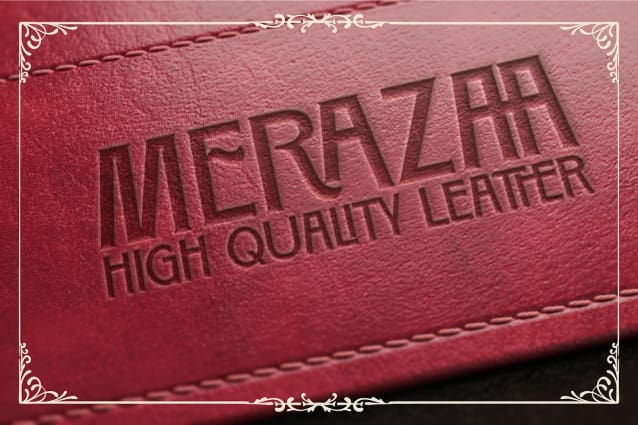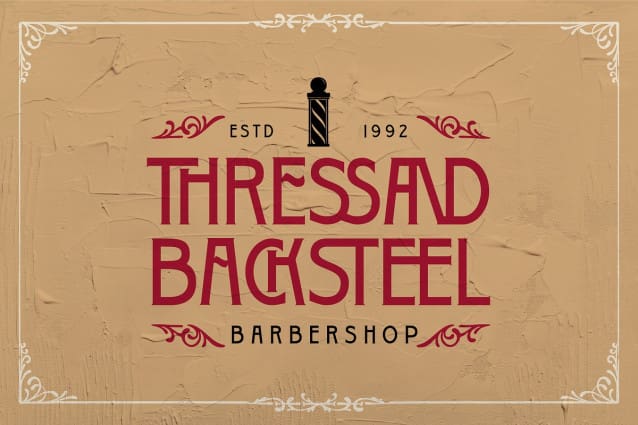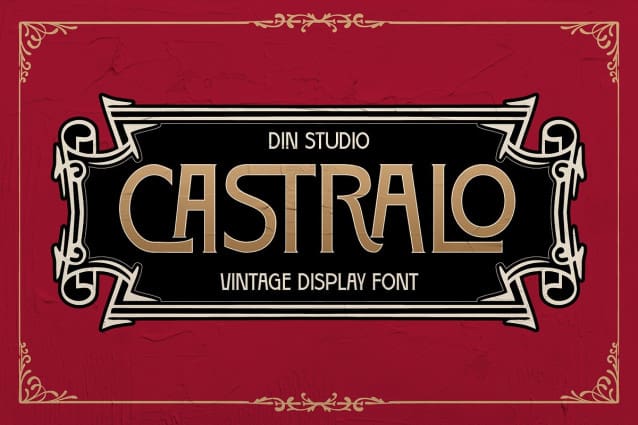
Castralo Vintage Font
Castralo Vintage Font a striking display font that blends vintage style with a modern edge. Crafted in all uppercase letters, Castralo shows a balanced weight that’s not too thick, making it perfect for designs that need a bold yet refined touch. The font’s sturdy and consistent sizing give it a solid and reliable feel, while maintaining excellent readability. As extra. Castralo gives ornaments.